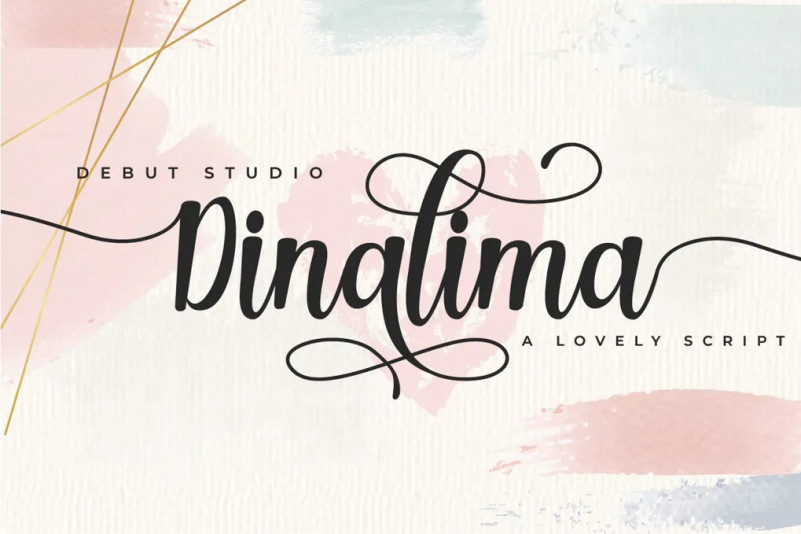
Dinalima Font
Debut Studio Presents, Dinalima Script A Lovely script font with much stylistic alternate option! This font is suitable for wedding invitation, poster, quote, label, card name, and other stuff